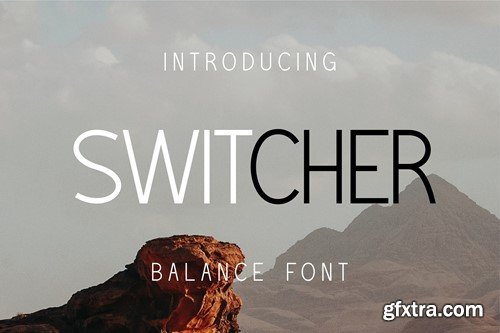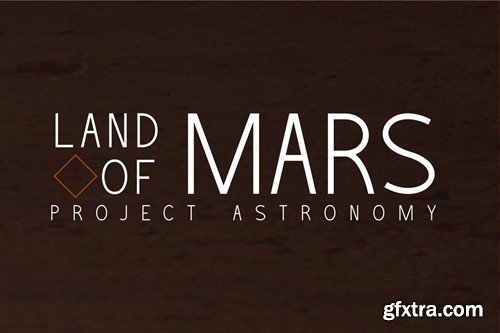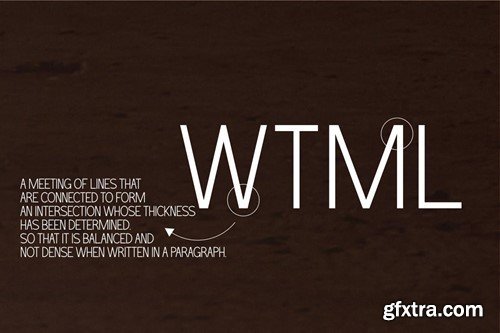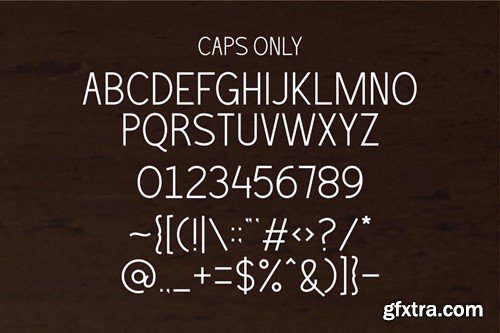
Switcher Font BL9ZT69
Switcher Font
is a font created with full consideration of balance in each letter. The line meeting is made more stable with a thickness that means that when written in large quantities, nothing becomes empty or denser. so the "Balanced" theme is the right choice for this font. Available in .OTF and .TTF formats only.